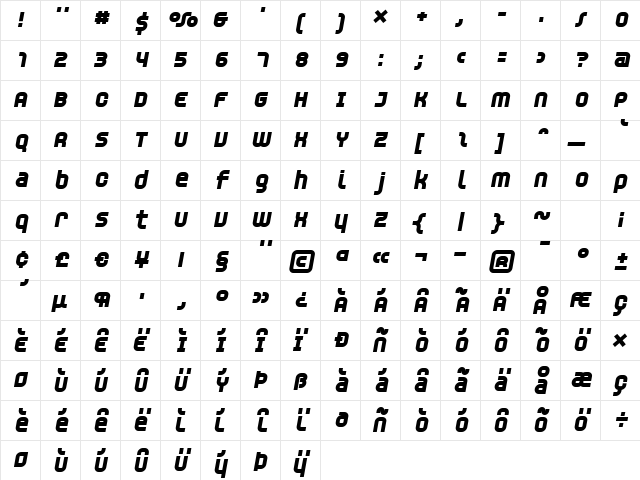
Unisect BlackOblique
Design Context for Unisect Typeface
Unisect takes a measured approach to typography — its balanced proportions and neutral character make it a reliable workhorse for both digital and print work. The dynamic lean of this cut emphasises speed and emphasis in any layout.